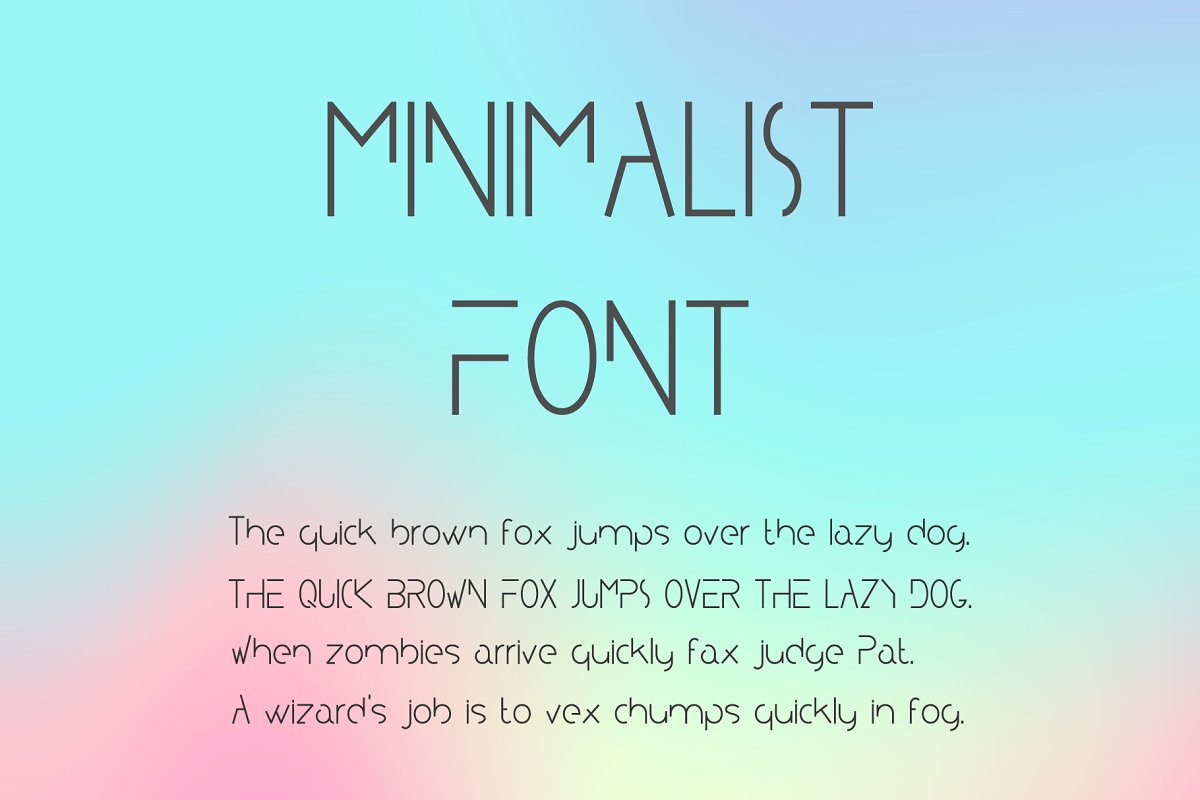
Minimalist Font
Minimalist Font is commonly used for activities such as printing on t-shirts and playing cards. It was developed as an Indonesian font.
And he releases it via range foundry for the number one time. This has taken the fundamentals fromĀ nickainley font . Then he made it with a hobby that brings the format to the innovative stage.